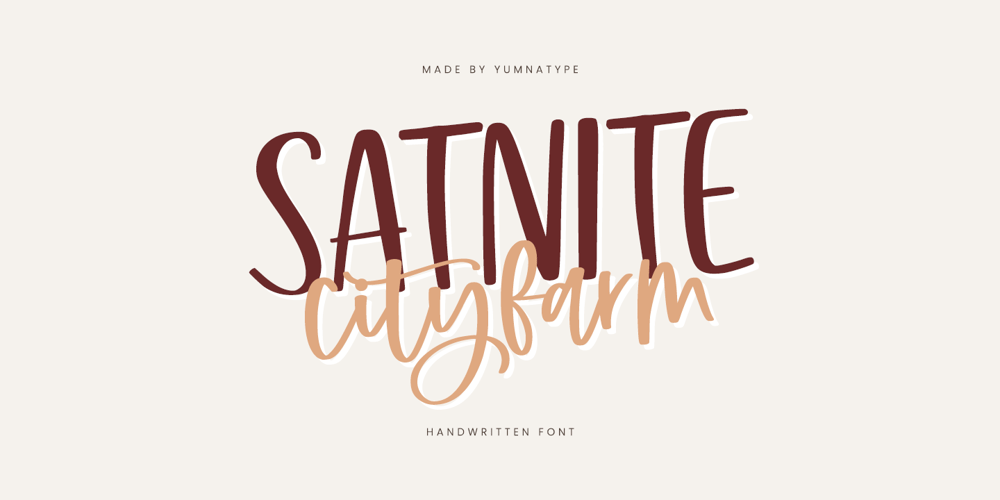
Satnite Cityfarm Font Family was designed by Donis Miftahudin and published by Yumna Type. Satnite Cityfarm contains 1 styles and family package options. Satnite Cityfarm is a versatile handwritten font that seamlessly blends two distinct styles, adding depth and character to your designs. The uppercase letters in Satnite Cityfarm are crafted with a thin weight and softened angles. This style gives them a sleek and contemporary appearance.In contrast, the lowercase letters of Satnite Cityfarm are elegantly designed in a cursive handwriting style, adding a touch of fluidity and grace to your text. Each letter flows seamlessly into the next, creating a sense of rhythm and movement that is both captivating and inviting. In addition, enjoy the features here.Features: Alternates Ligatures Multilingual Supports PUA Encoded Numerals and Punctuations Satnite Cityfarm fits in headlines, logos, posters, flyers, branding materials, print media, editorial layouts, and many more designs. Find out more ways to use this font by taking a look at the font preview.Thanks for purchasing our fonts. Hopefully, you have a great time using our font. Feel free to contact us anytime for further information or when you have trouble with the font. Thanks a lot and happy designing.